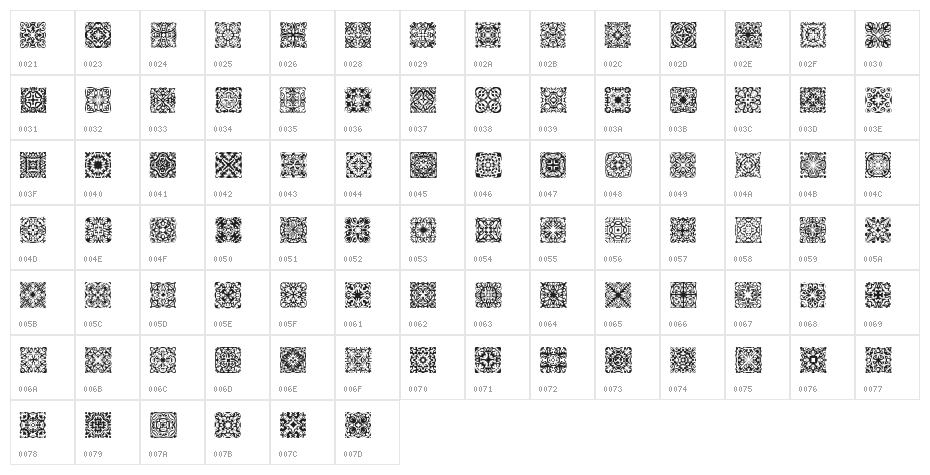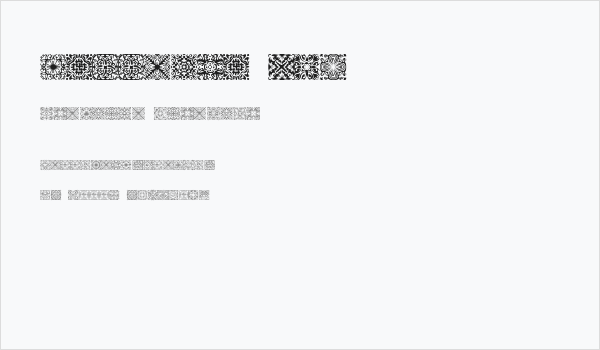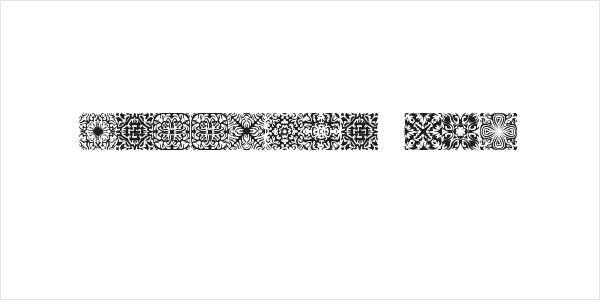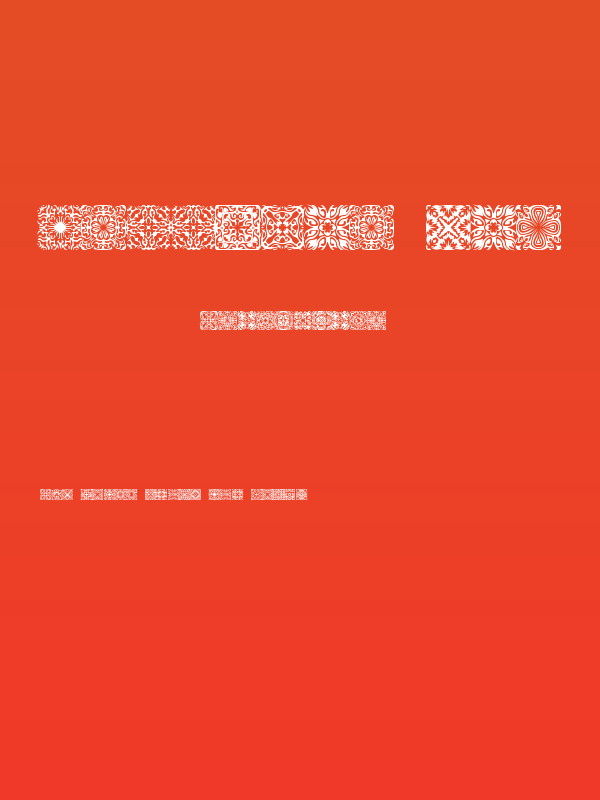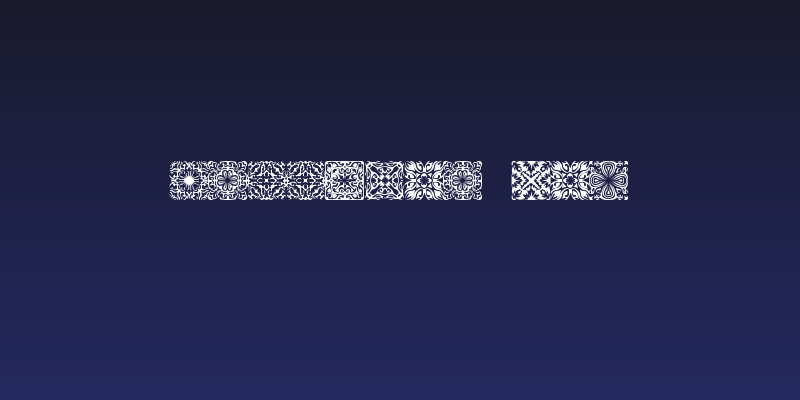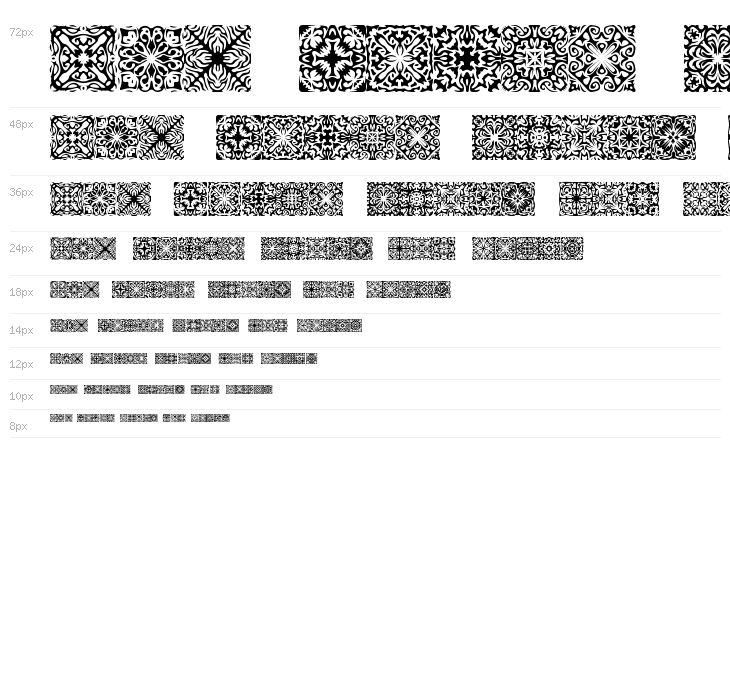
Symmetry BRK Font
Symmetry BRK Description
A highly decorative, ornamental set of symmetrical tile-like glyphs with intricate black and white patterns, each character featuring unique geometric or floral motifs. The style is reminiscent of vintage or traditional ceramic tiles, with strong visual complexity and high contrast.
| Overall Style | Decorative, Vintage, Ornamental |
| Use Case | Logos, Decorative elements, Headlines, Borders |
| Proposed Projects | Posters, invitations, branding, packaging, decorative borders, art projects. |